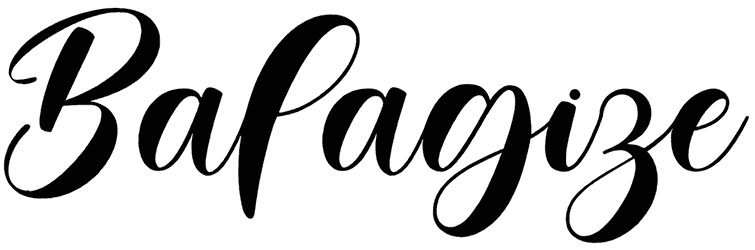
Balagize Font
Balagize is an exquisite and versatile calligraphy font that can inspire you and be used for many art projects. This script font will find its place anywhere and highlight weddings, invitation cards, and logos.
You can arm yourself with this helpful resource and use it to shine in different artistic fields. The elaborate atmosphere and powerful personal feeling created in the presence of Balagize will finally put you one step ahead of your competitors.